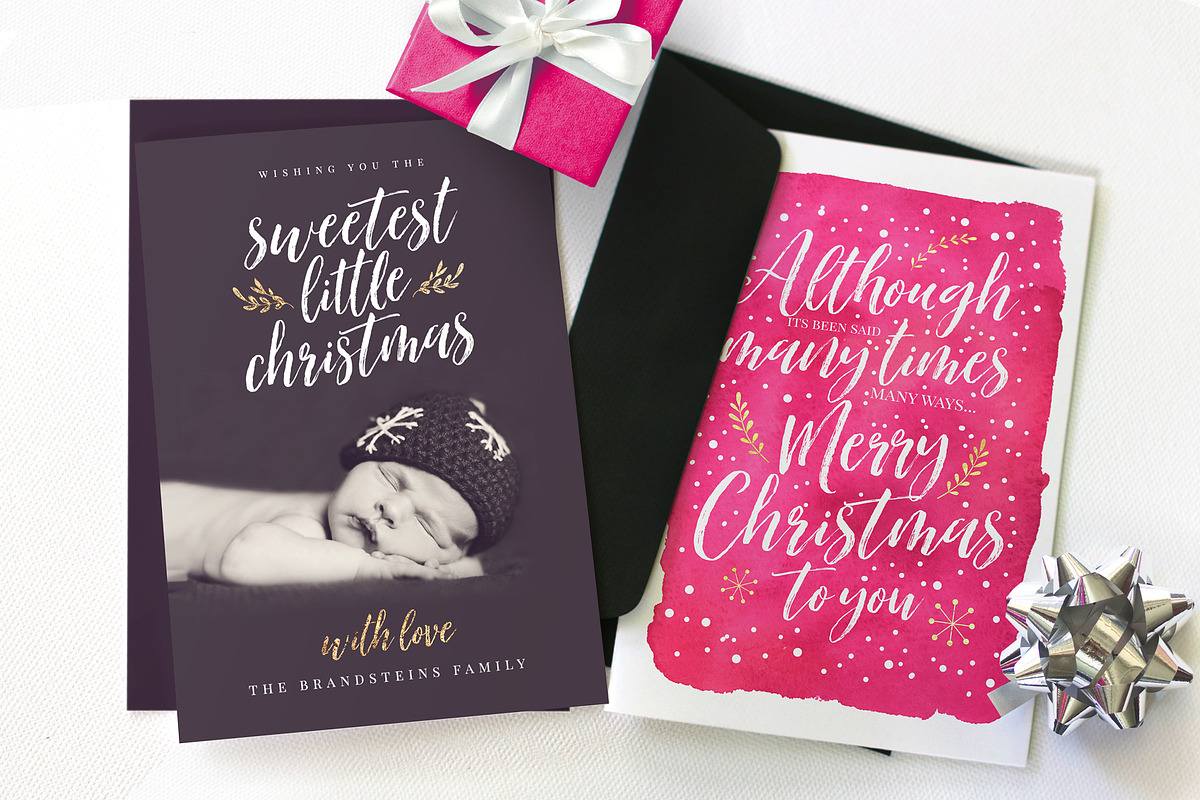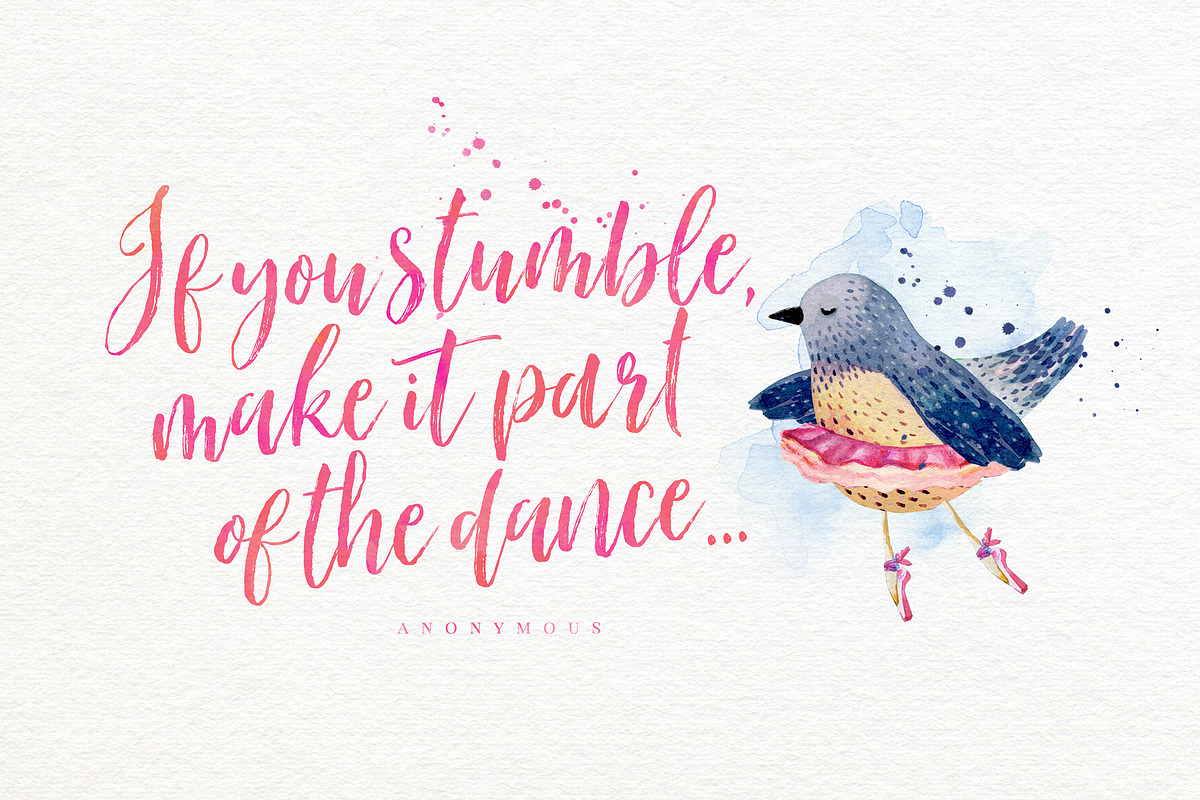
Bloomishly Brush Font
Bloomishly Brush Font by Nicky Laatz is a font selected for branding, posters, packaging, typography.
Why Bloomishly Brush Font is worth a look
Bloomishly Brush Font by Nicky Laatz fits naturally into Branding, posters, packaging, typography.